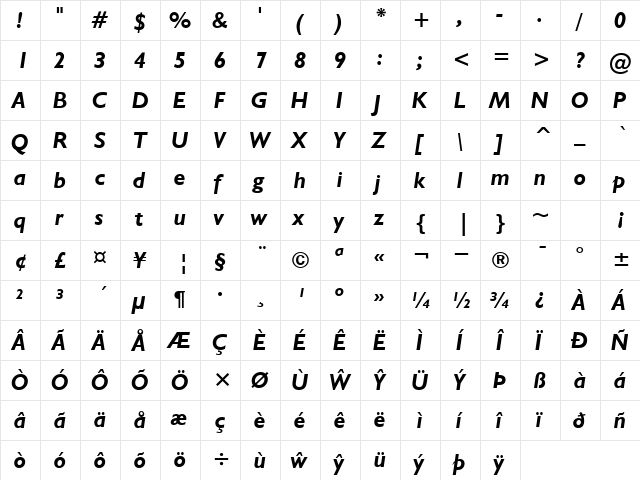
NRB Welsh Gillian BoldItalic
Design Context for NRB Welsh Gillian Typeface
NRB Welsh Gillian is a composed and adaptable typeface that performs quietly and consistently across a wide range of design contexts. Its italic angle brings a sense of urgency and motion to the letterforms. The heavy weight commands attention and anchors typographic hierarchies.
Pro Tip: Try NRB Welsh Gillian for annotation and caption copy alongside an upright companion — the contrast in angle creates a dynamic but ordered typographic system.